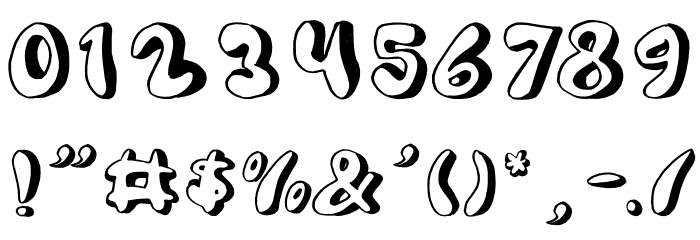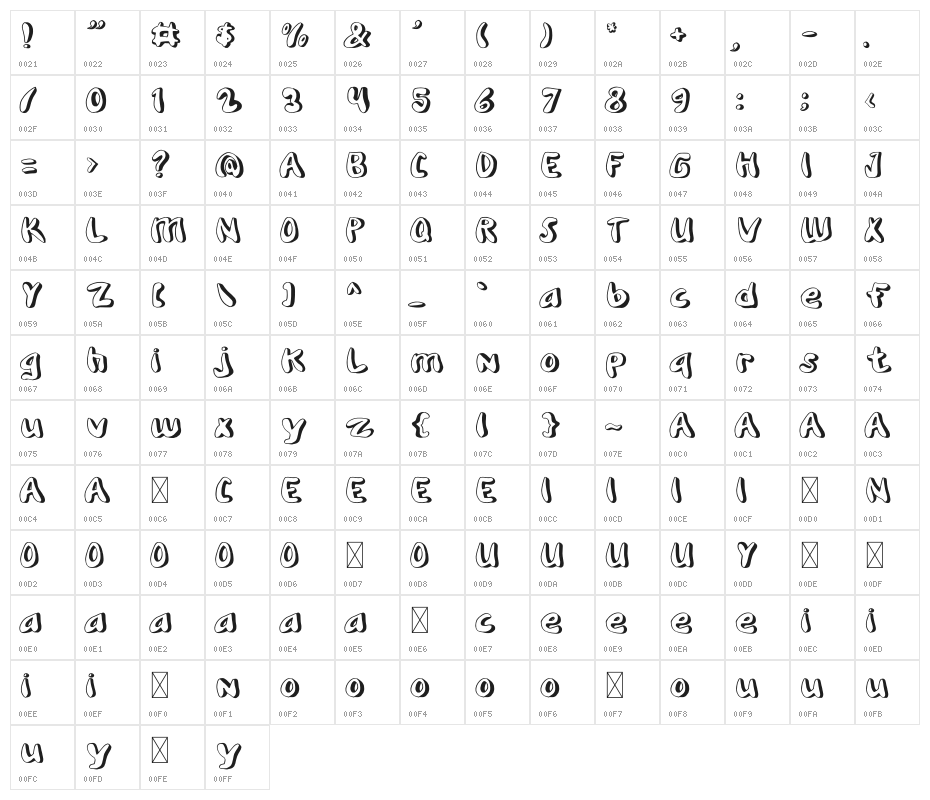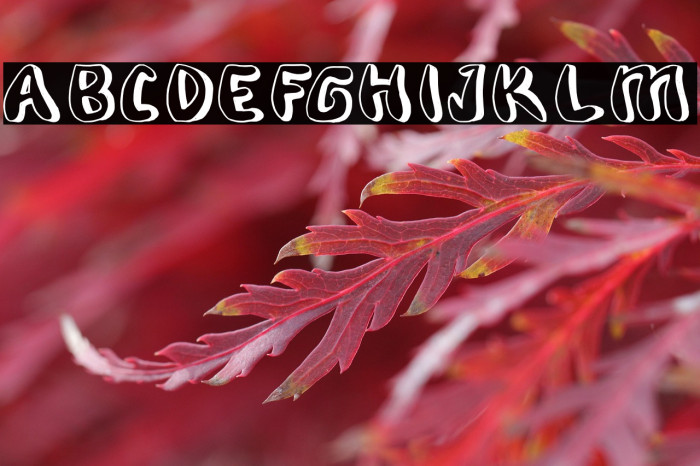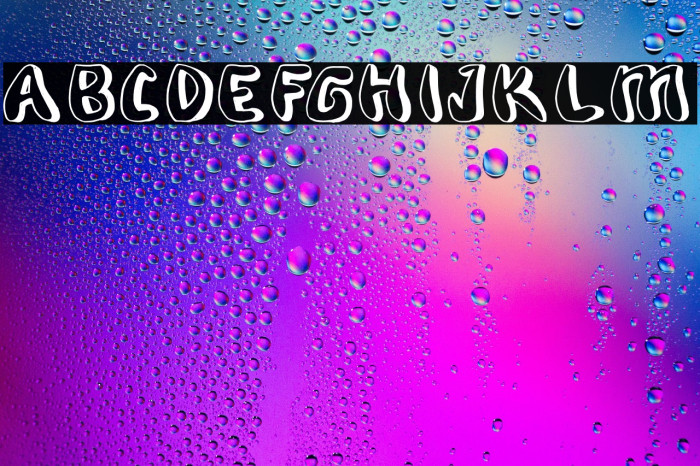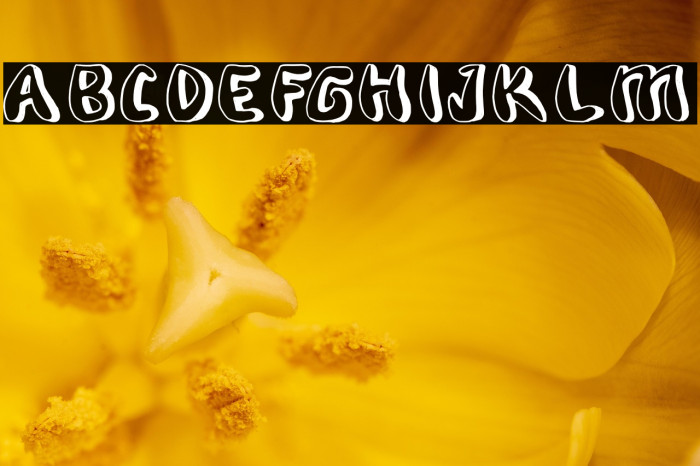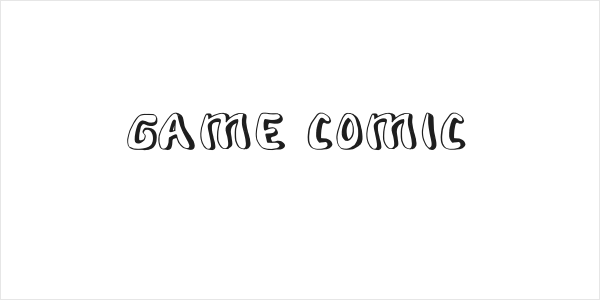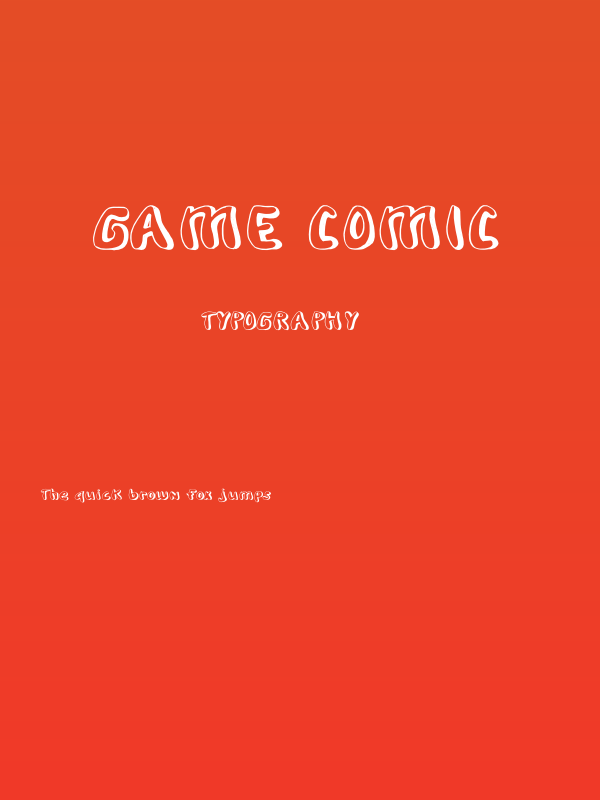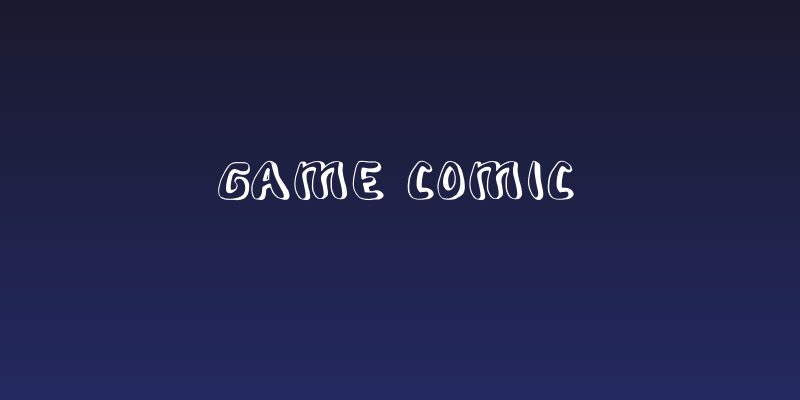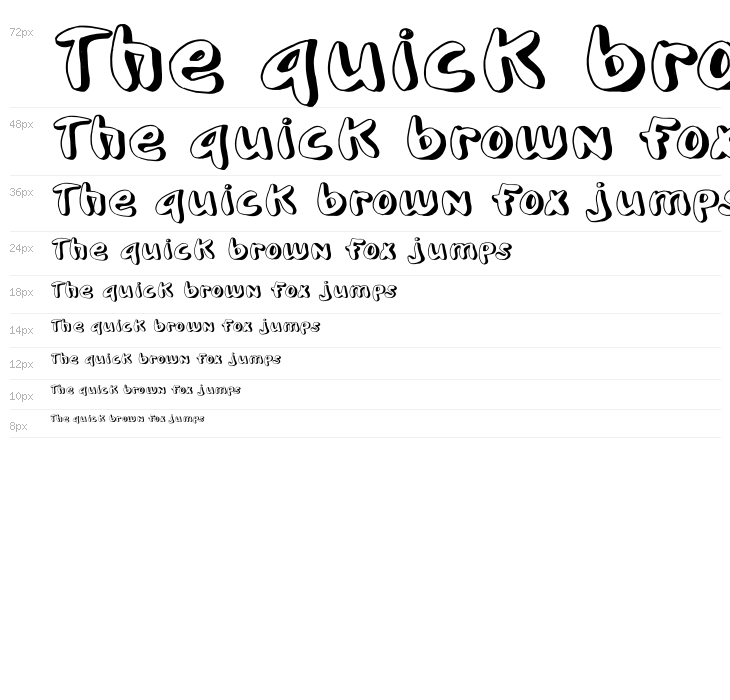
GAME COMIC Font
GAME COMIC Description
This playful and bold font features a comic-style design with a hand-drawn appearance. The letters are rounded and slightly irregular, giving them a whimsical and dynamic feel. The thick outlines add a sense of depth and make the characters stand out, while the inner strokes are smooth and consistent. This font is perfect for projects that require a fun and informal touch, such as children's books, comic strips, or playful branding. The numbers and special characters maintain the same lively style, ensuring a cohesive look across all text elements.
| Overall Style | Playful, Comic |
| Proposed Projects | Ideal for children's books, comic strips, playful branding, and casual invitations. |